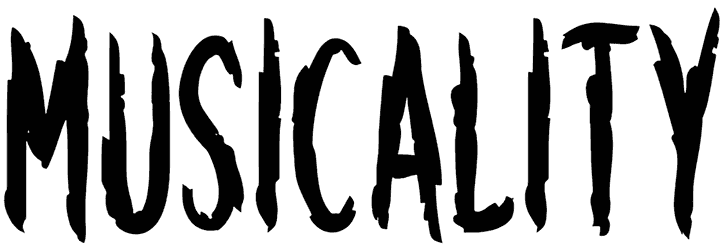
Musicality Font
If you want to make the reader feel horror with all their cells, you need to combine the horror font with your typography. Musicality can be your first choice; give it a try and see how it goes professionally. Places where it will stand out are posters, Halloween flyers, movies, and so on.
Lowercase and numbers aren’t included in this collection, but still, you can create brilliant artwork with this evil font. Don’t forget to check out Resource Boy.